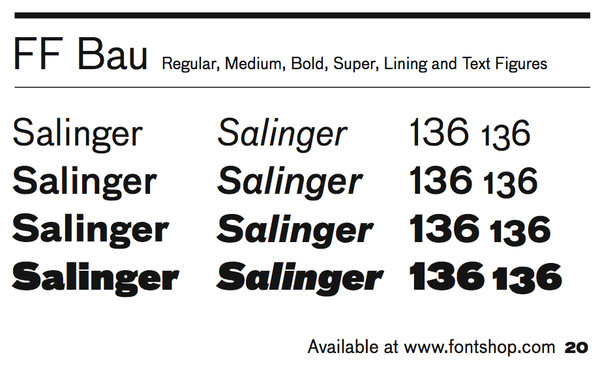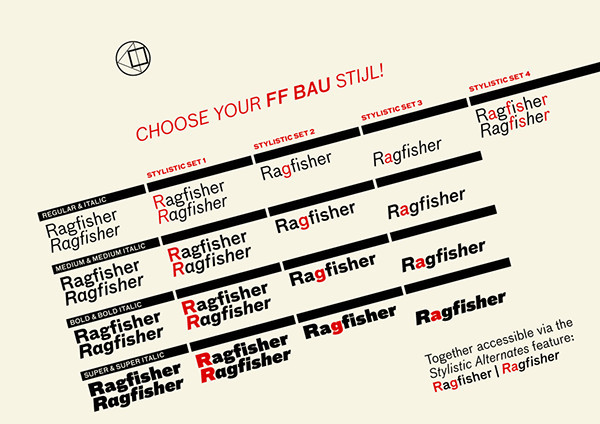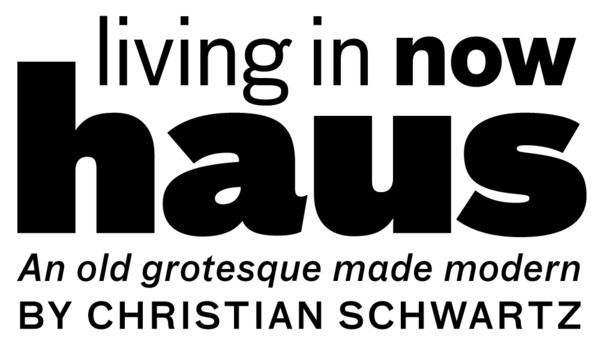
FF Bau Pro Font
In spite of – or perhaps because of – Helvetica’s reputation for cold, calculated perfection, it has been the world’s most popular Roman typeface for over four decades. Drawn by Max Medinger and introduced under the name Neue Haas Grotesk in 1957, its roots lie in much quirkier and personable material. Its earliest direct ancestor, known simply as Grotesk, was first introduced by the Schelter & Giesecke foundry in Leipzig around 1880. The Bauhaus, in nearby Dessau, chose this face as the main workhorse for their printing shop, and used it for the vast majority of their classic experiments in asymmetrical typography. In 1999 Erik Spiekermann asked type designer Christian Schwartz to consider drawing a revival of S&G’s Grotesk, updating the family for contemporary typographic needs without rationalizing away the spirit and warmth of the original. The Regular, Medium, and Bold are drawn directly from S&G sources, and the Super was added for situations where subtlety would be inappropriate. The family is released in 2002 under the name FF Bau, in homage to the most noted users of the original.